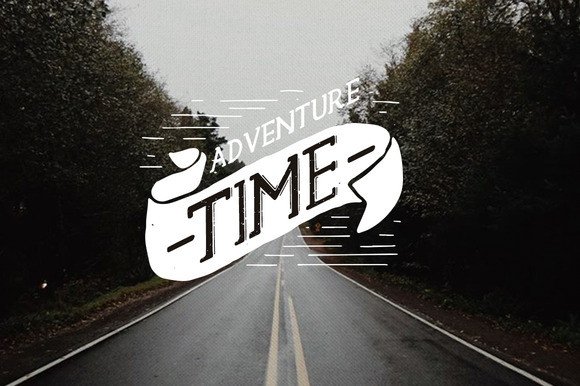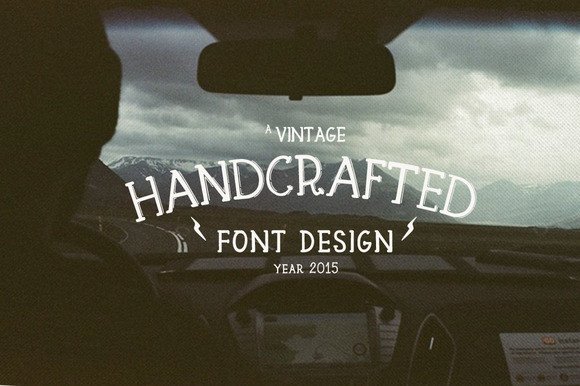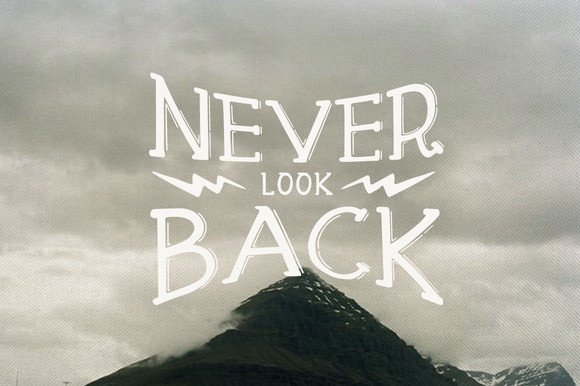
Bartolomew Font: Elevate Your Designs with a Cool and Monoline Handwritten Style
Are you on the hunt for a unique and versatile font to elevate your designs? Look no further than Bartolomew, a cool and monoline handwritten font that’s perfect for personal projects or alternative designs. With its effortless charm and sleek lines, Bartolomew reads well and can seamlessly fit into both retro and modern design landscapes.
What Makes Bartolomew Font Stand Out?
Bartolomew’s monoline handwritten style gives it a distinctive edge that’s hard to find in other fonts. Its clean lines and minimalist aesthetic make it an excellent choice for designers who want to add a touch of sophistication to their work. Whether you’re creating a logo, branding materials, or social media graphics, Bartolomew’s got the versatility to make your designs shine.
Key Features of Bartolomew Font
- Monoline Handwritten Style: Bartolomew’s sleek and modern aesthetic is perfect for creating eye-catching designs that demand attention.
- Retro and Modern Compatibility: This font’s unique charm allows it to blend seamlessly into both retro and modern design scapes, making it a versatile addition to your font library.
- Excellent Readability: Bartolomew’s clear and concise lettering ensures that your message gets across, whether you’re using it for headings, titles, or body text.
How to Use Bartolomew Font in Your Designs
Bartolomew’s adaptability makes it easy to incorporate into various design projects. Here are a few ideas to get you started:
- Branding and Logo Design: Use Bartolomew to create a unique and memorable logo that sets your brand apart.
- Social Media Graphics: Add a touch of personality to your social media graphics, such as Instagram posts, Facebook headers, and Twitter banners.
- Packaging Design: Give your product packaging a stylish upgrade with Bartolomew’s modern and sophisticated aesthetic.
- Web Design: Use Bartolomew as a display font to add visual interest to your website’s headers, titles, and calls-to-action.
Tips for Pairing Bartolomew Font with Other Fonts
To get the most out of Bartolomew, try pairing it with other fonts that complement its monoline handwritten style. Here are a few suggestions:
- Serif Fonts: Pair Bartolomew with classic serif fonts like Georgia or Times New Roman to create a striking contrast between modern and traditional.
- Script Fonts: Combine Bartolomew with elegant script fonts like Pacifico or Great Vibes to add a touch of whimsy and sophistication.
- Display Fonts: Match Bartolomew with bold display fonts like Arial Black or Impact to create a visually appealing hierarchy of typography.
| Font Name | Bartolomew Font |
| Author | Blue Robin Design Shop |
Bartolomew font is an exceptional addition to any designer’s font library. Its unique monoline handwritten style, versatility, and excellent readability make it perfect for a wide range of design projects. Whether you’re a seasoned designer or a crafty DIY enthusiast, Bartolomew is sure to elevate your designs and help you stand out from the crowd.